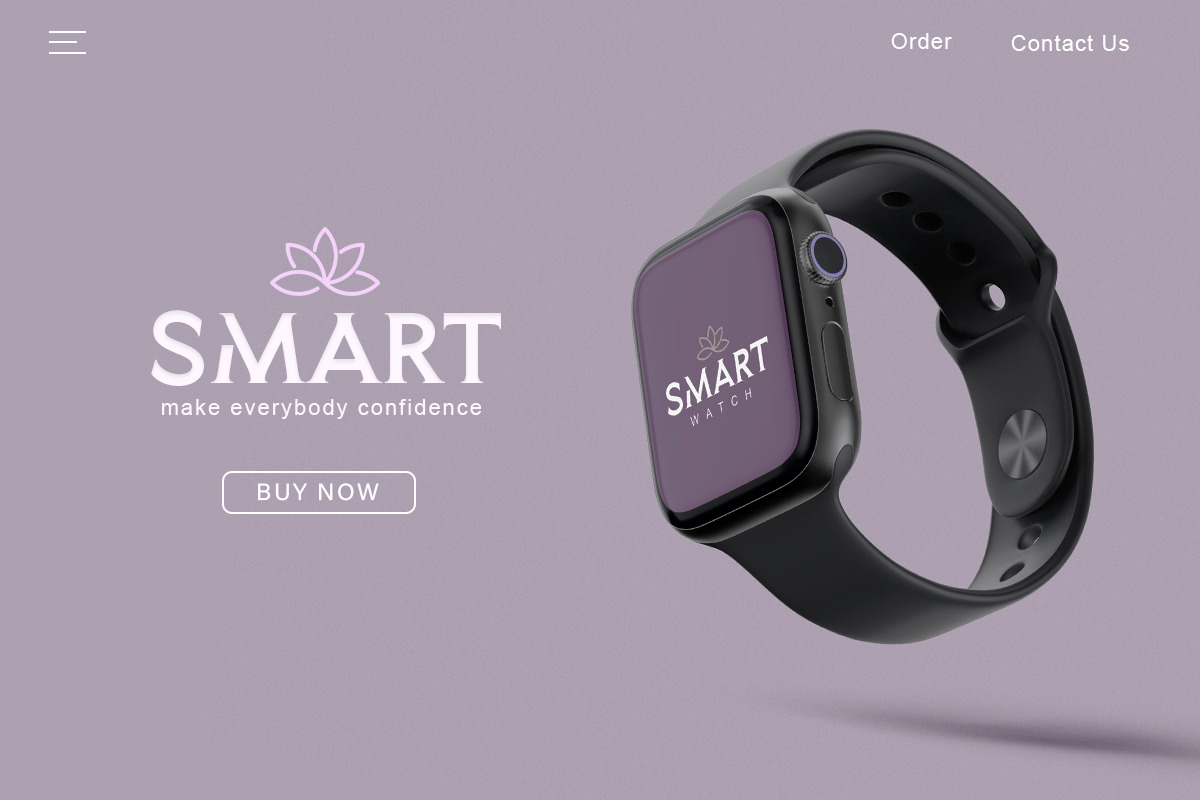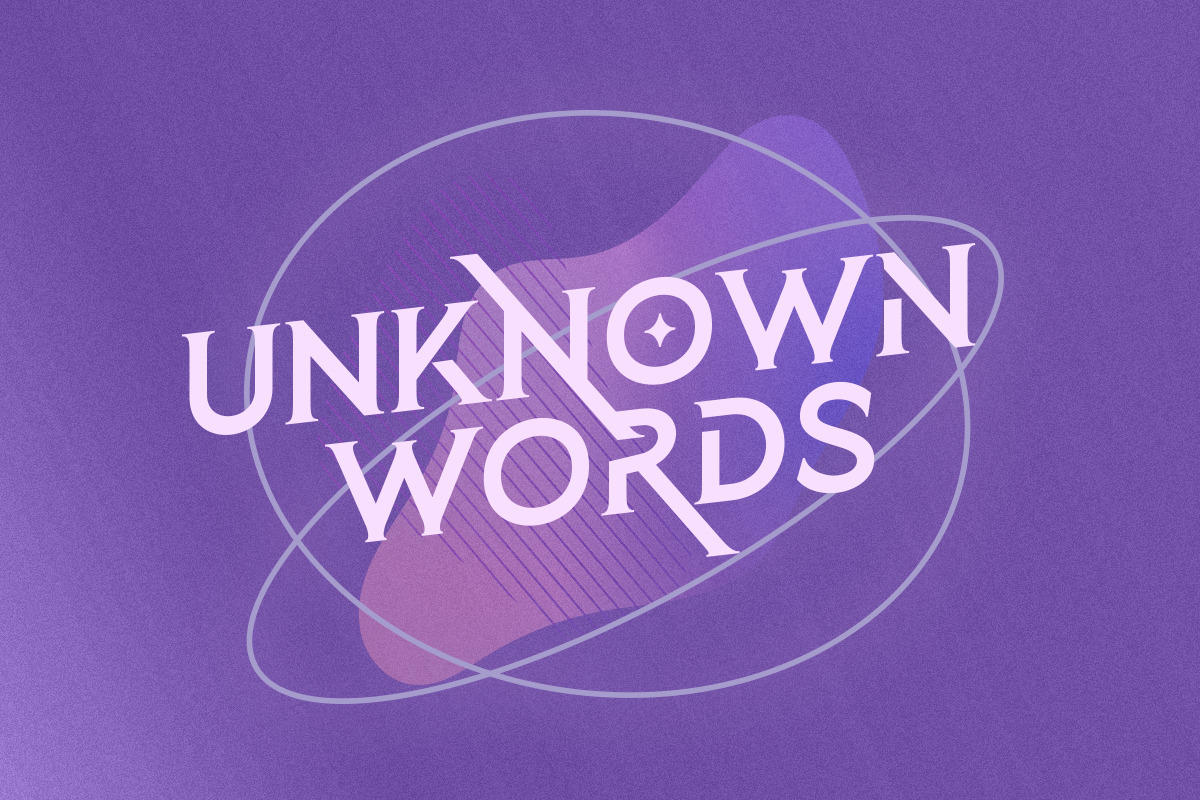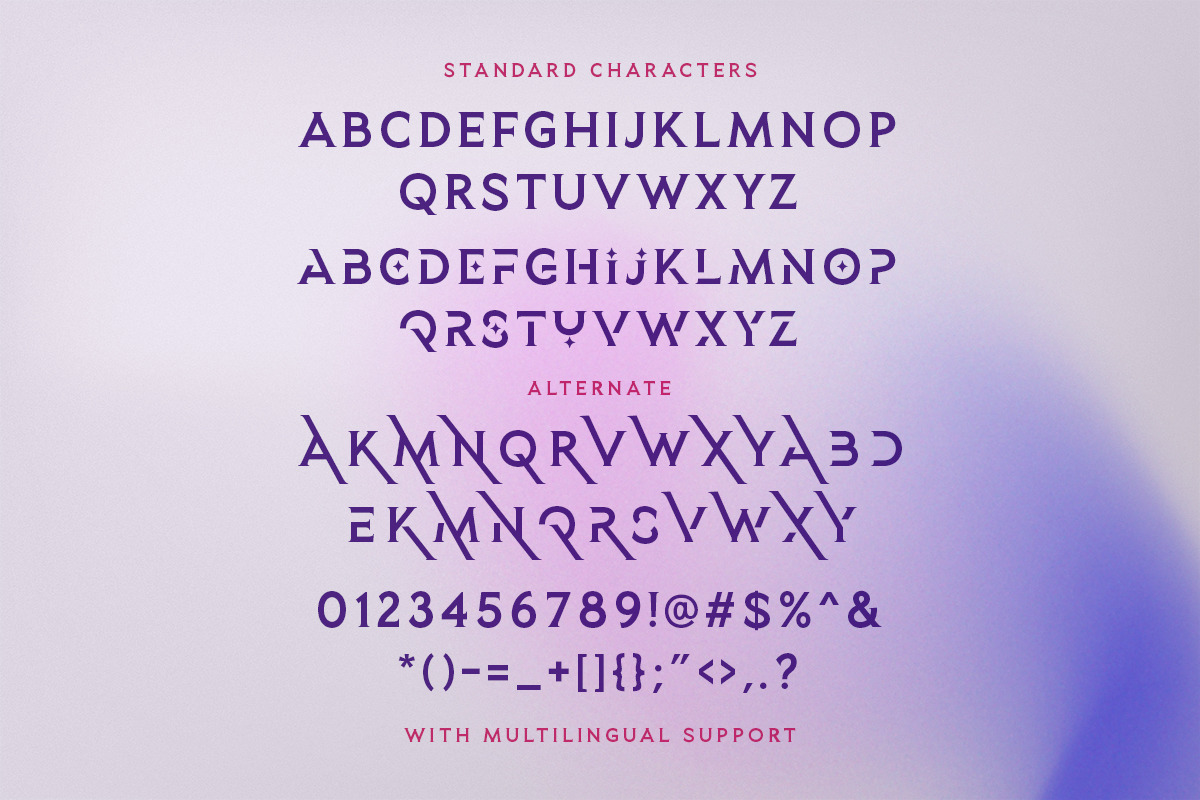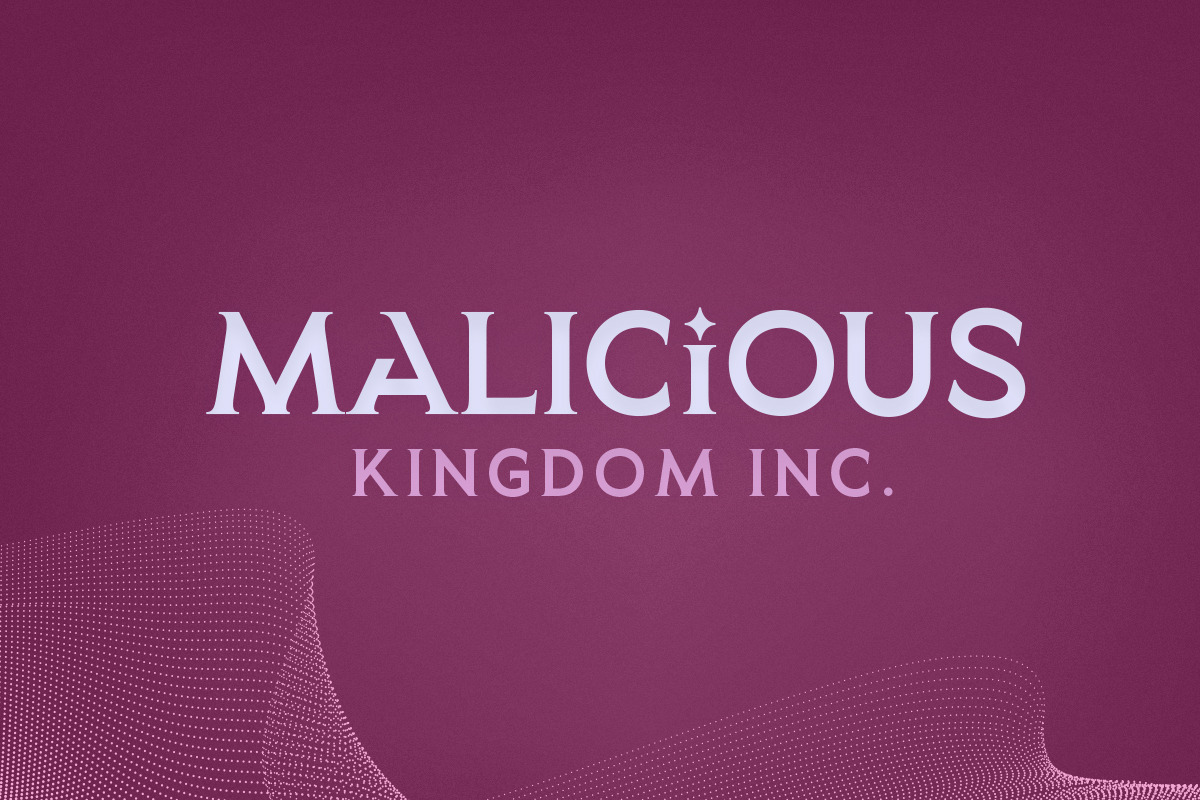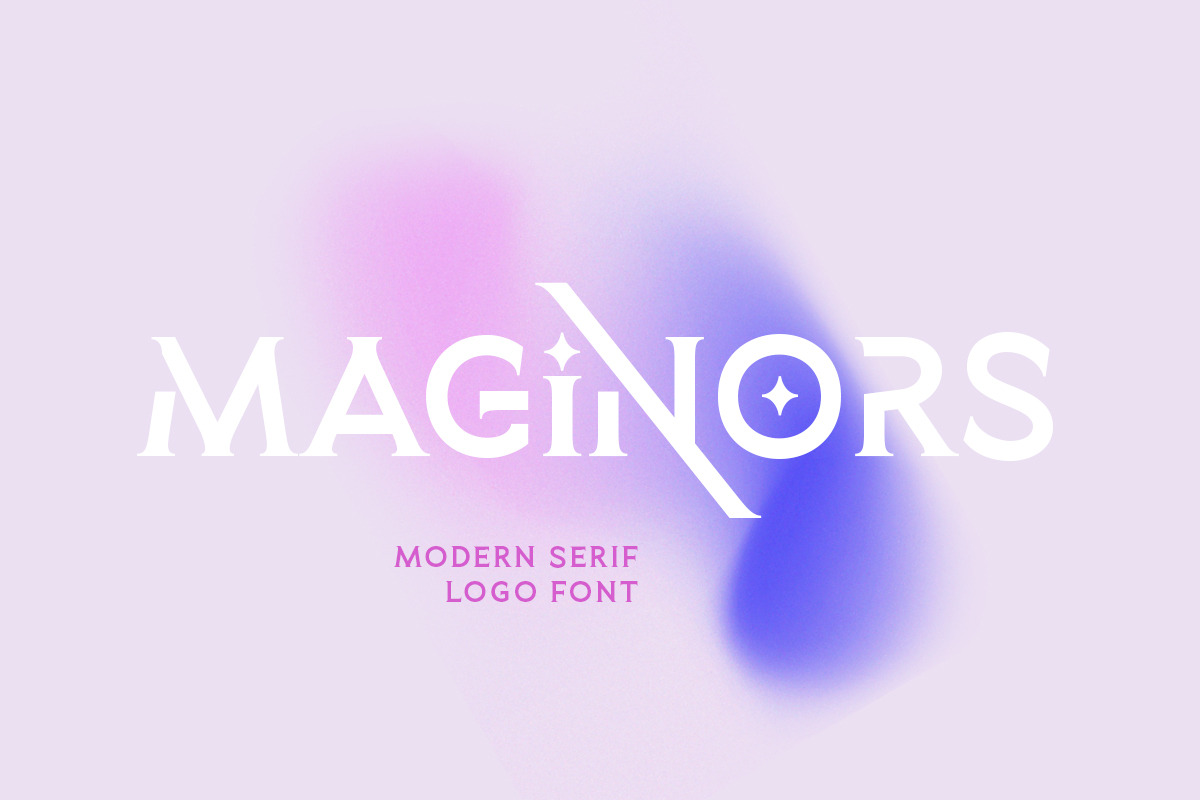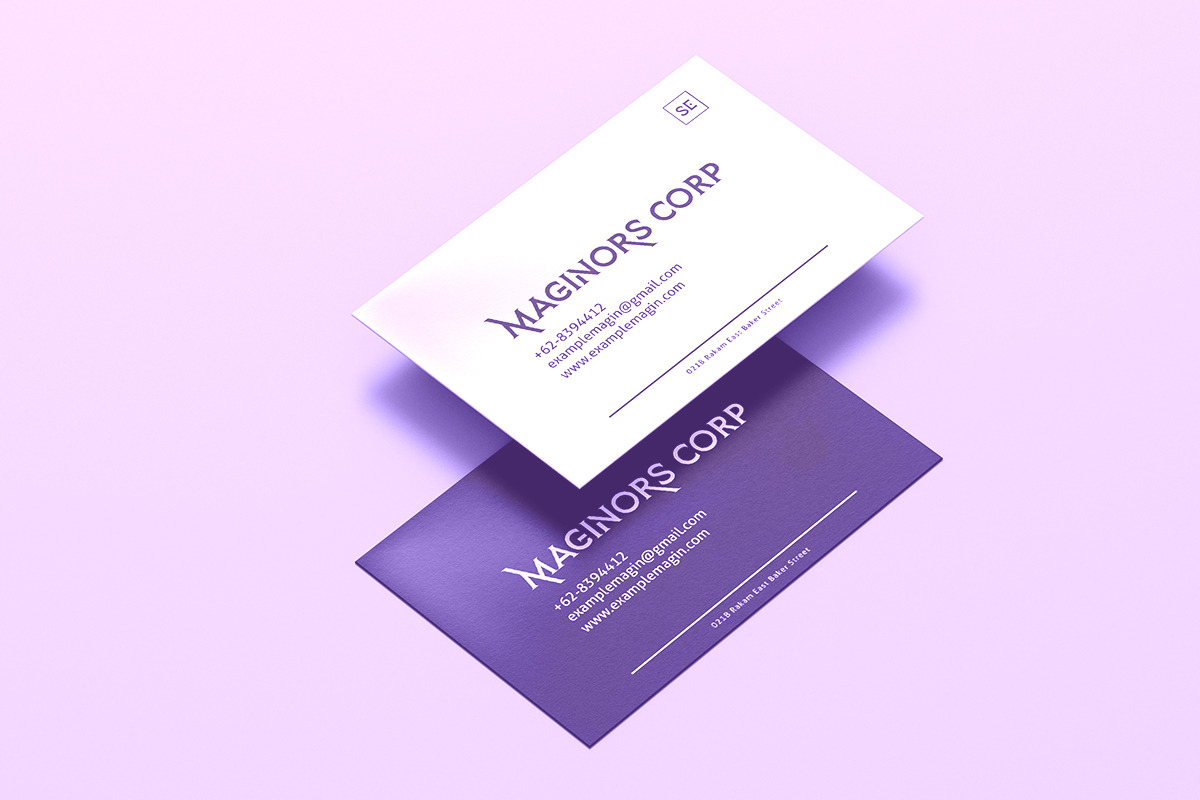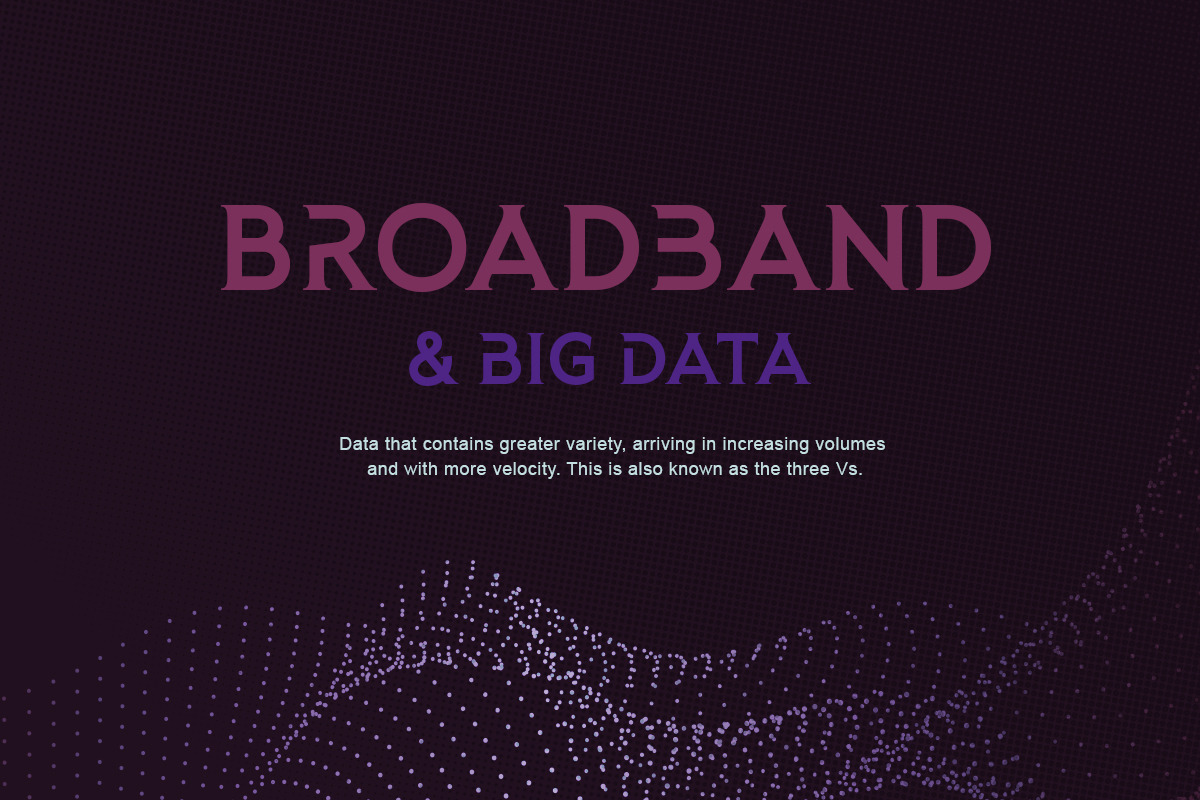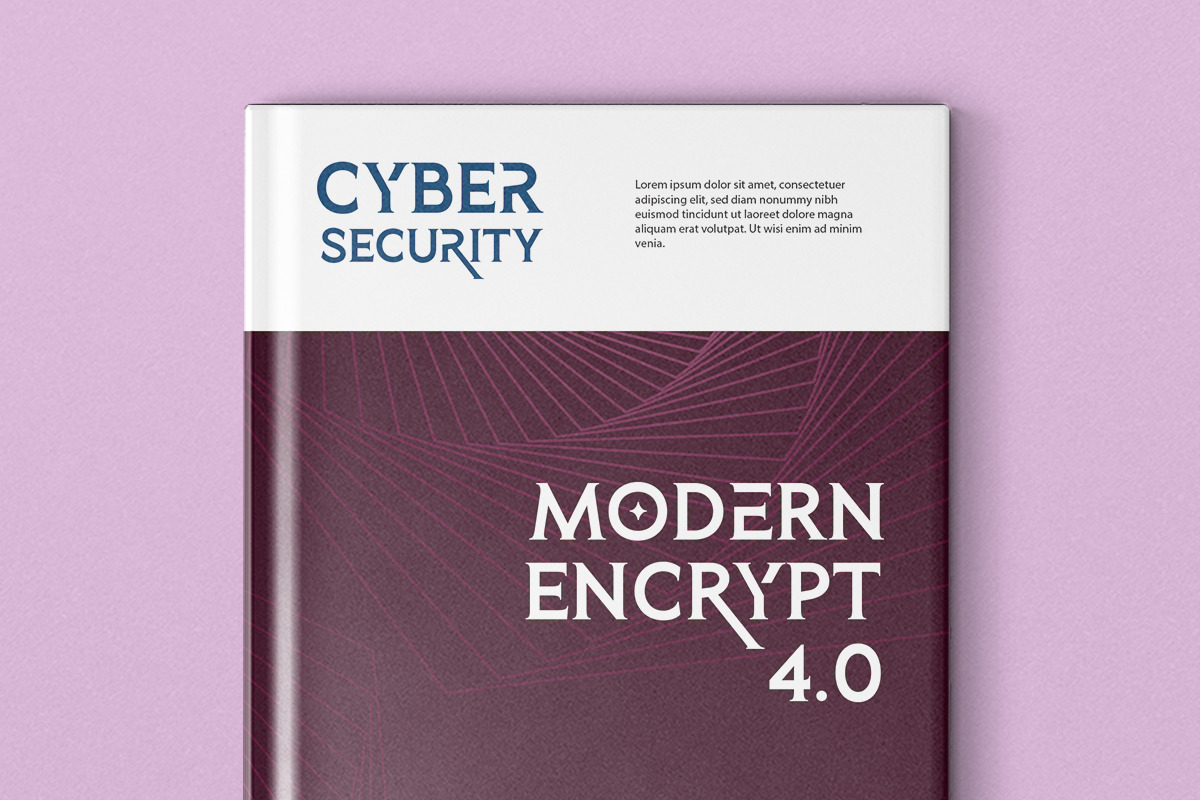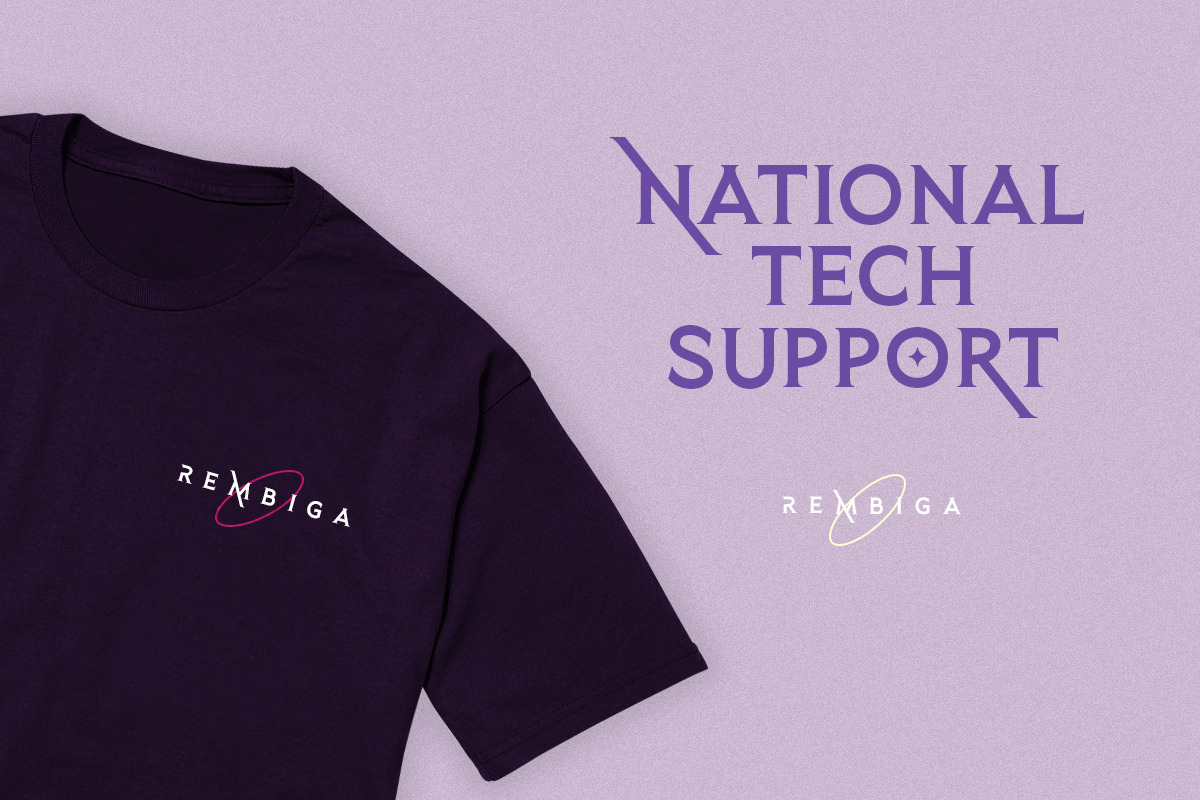
Maginors - Serif Logo Font
Love Blackpast? This is the serif version of it. Introducing, Maginors, a modern serif logo font with alternates!
Maginors is a serif based font with unique lowercase that will make your design looks stylish and modern. With magic touch, this font will make your project stunning and magical. You can use this font for any purpose, especially to make logotype. You can mix and match the uppercase and lowercase to make your logo more special. This font also have special alternates that will make your design more stand-out!